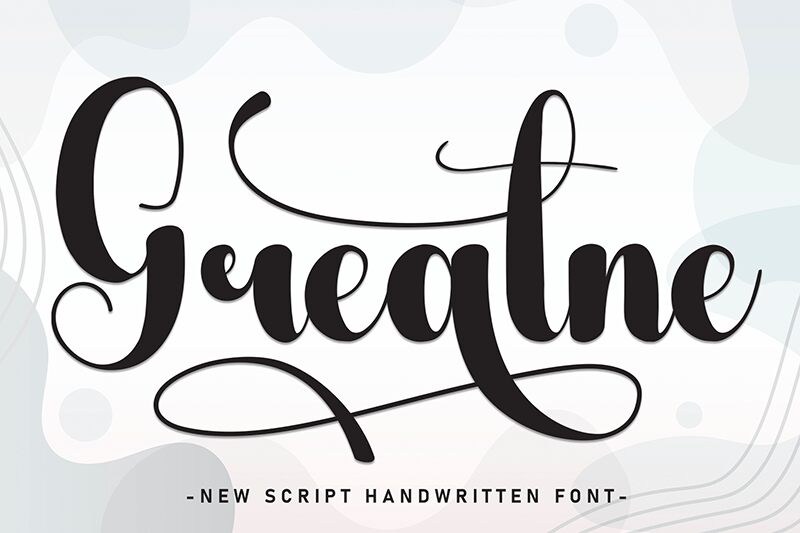
Greatne
Greatne font by Andi Moz is an elegant brush typeface with a smooth, flowing style. This modern script font features expressive lines and sophisticated details, making each character stand out. Built with a contemporary look and decorative touches, it combines classic elegance with modern flair. The subtle texture adds depth to any project, creating a lasting visual impact.